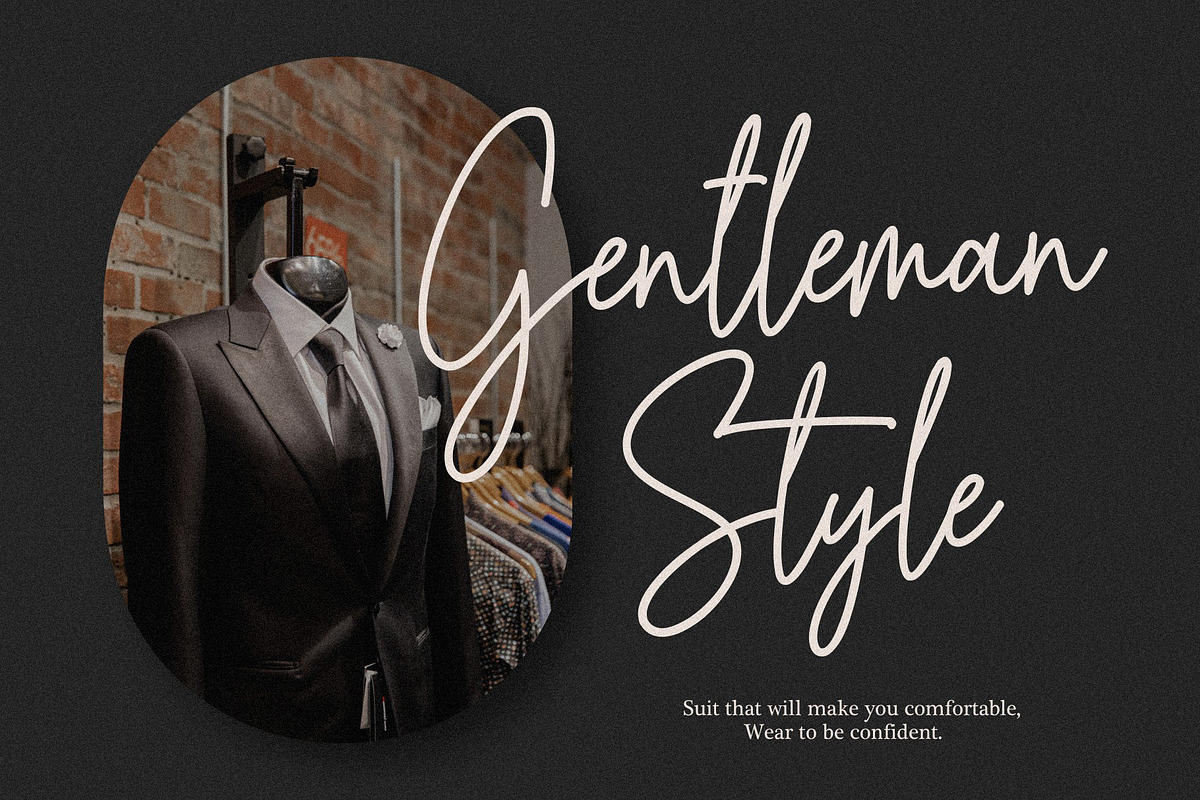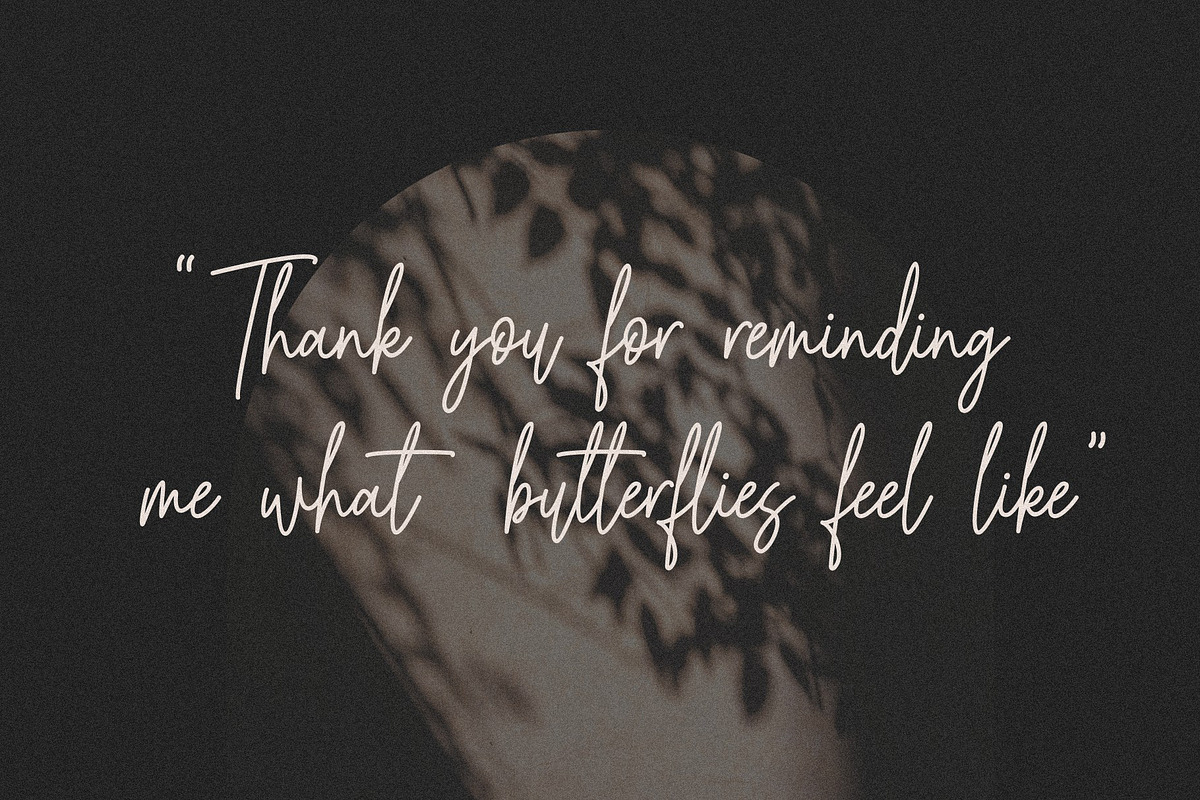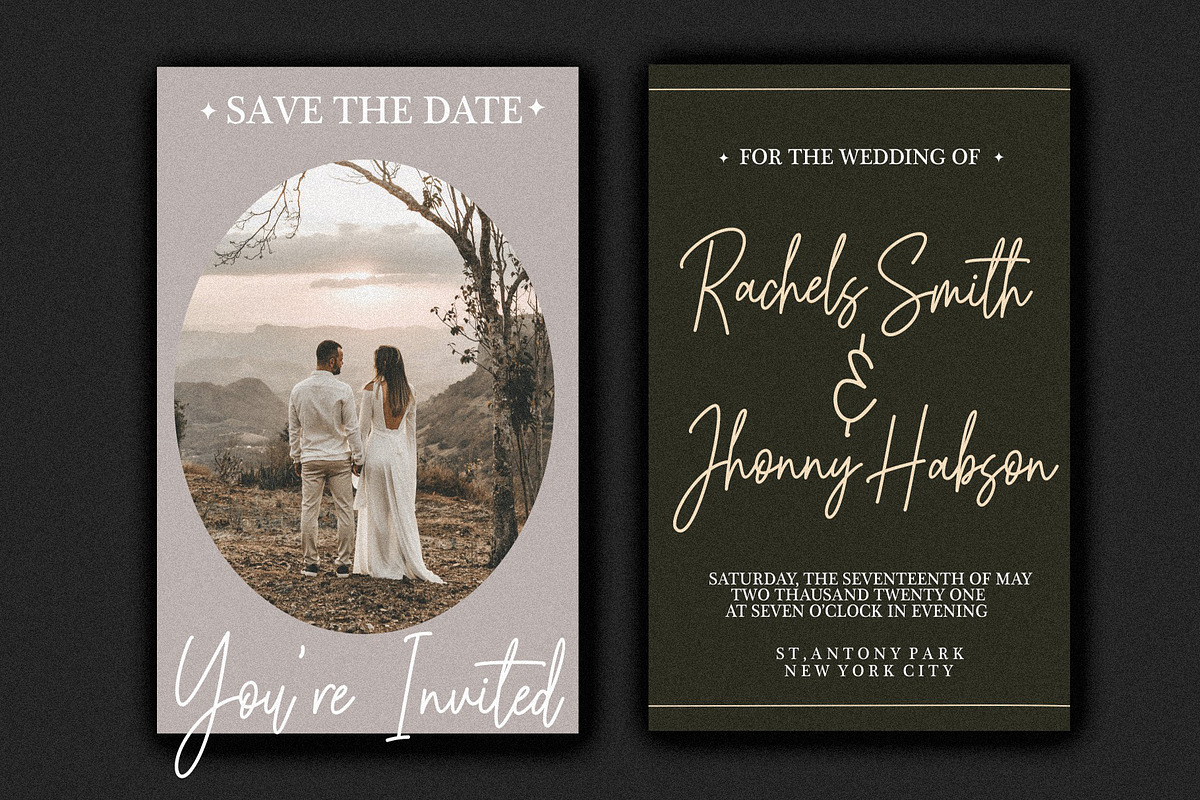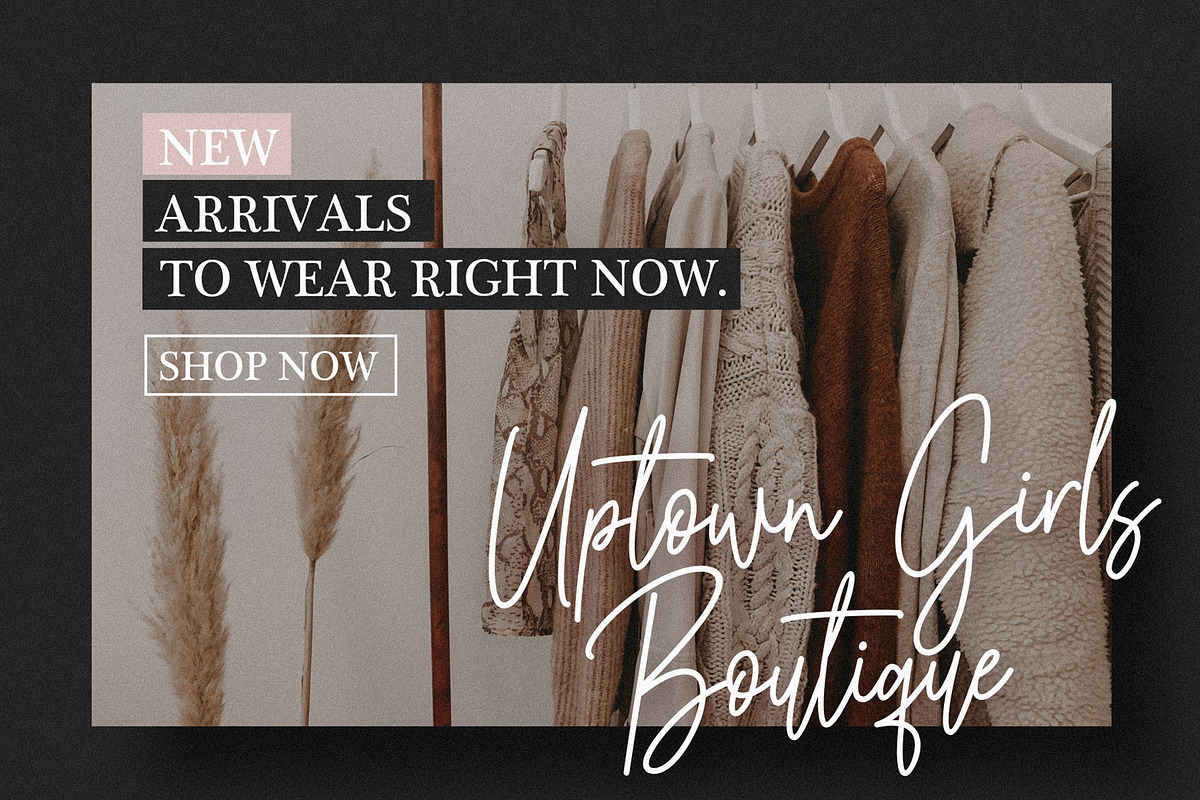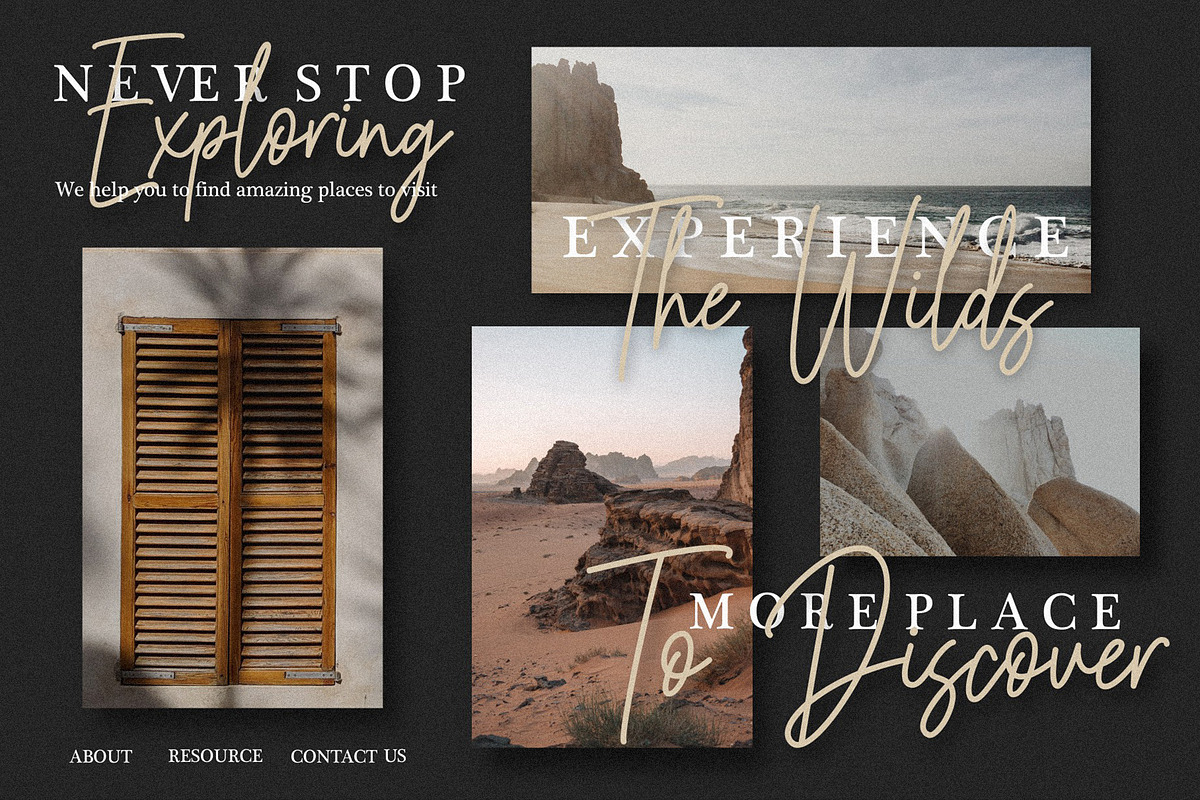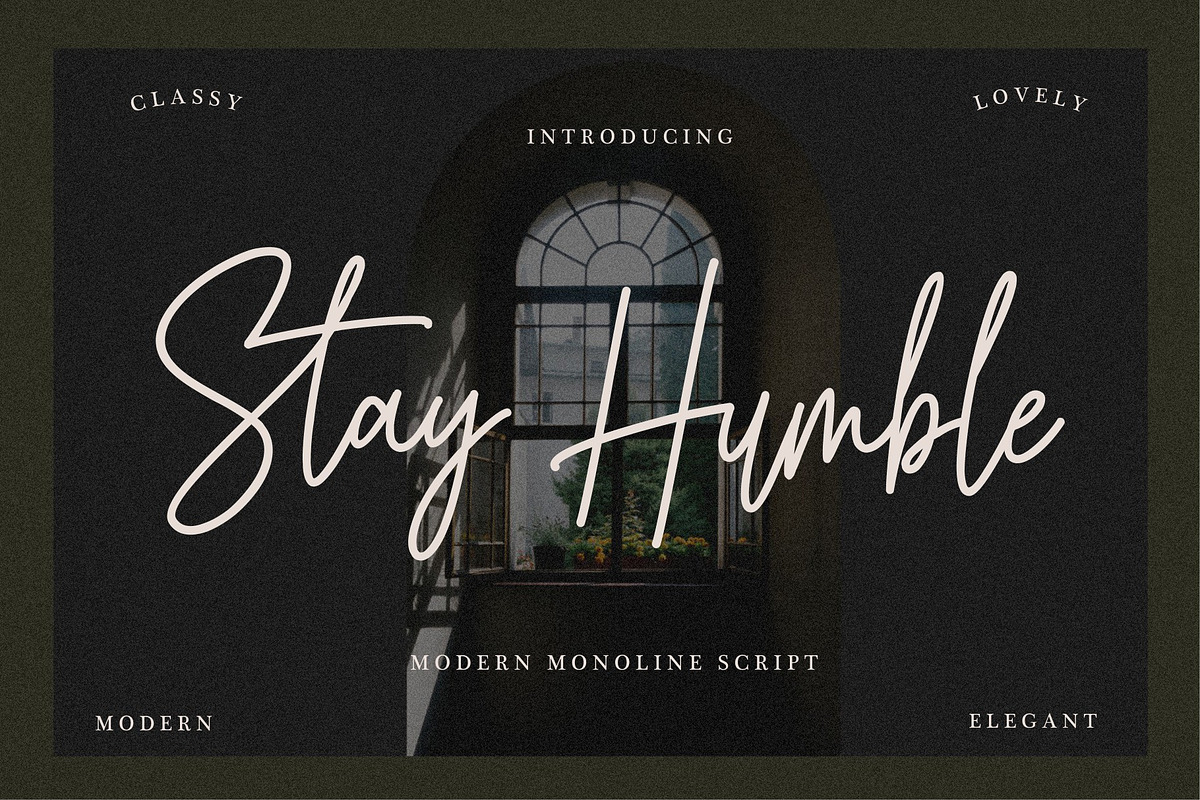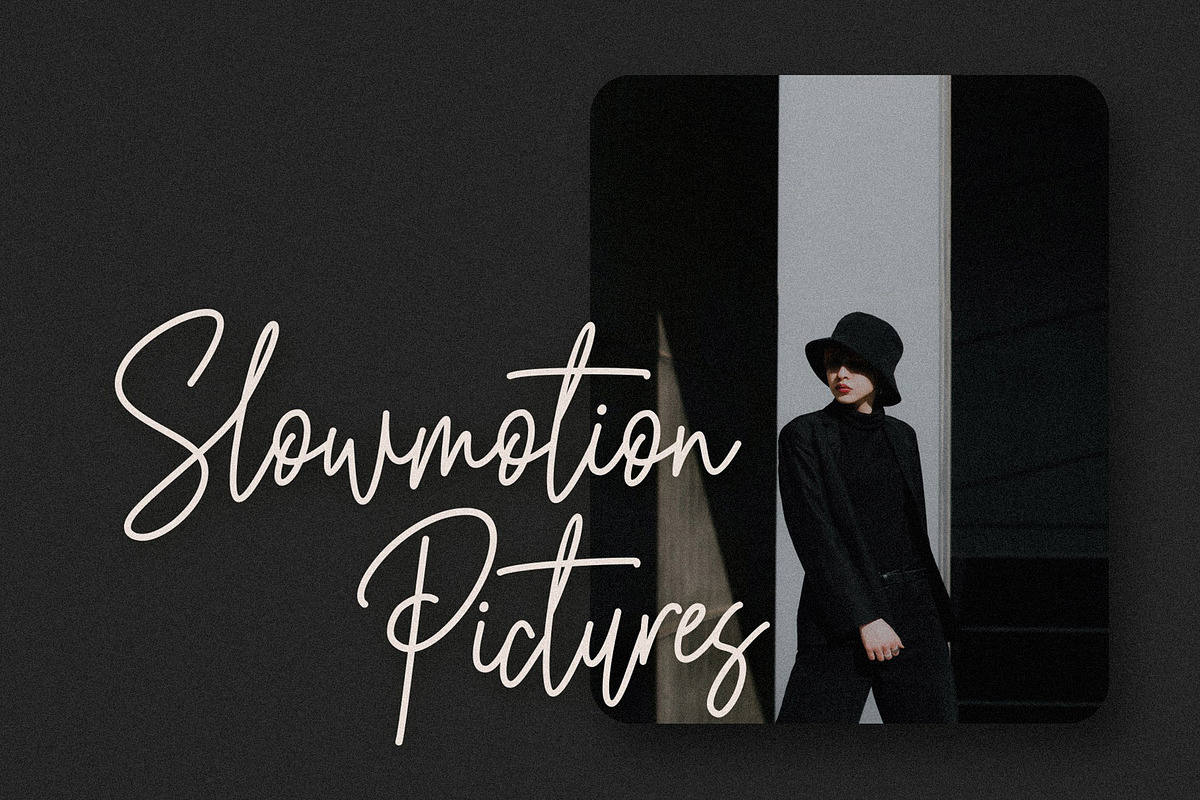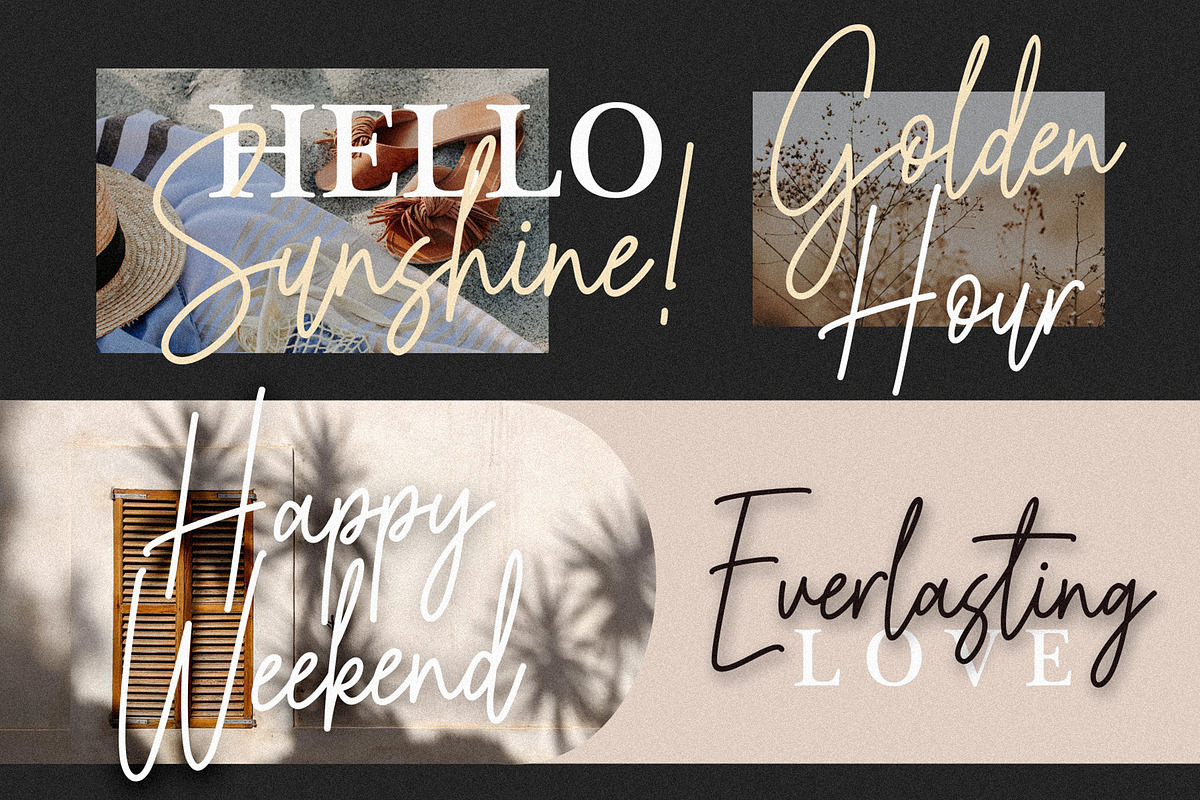
Stay Humble - Modern Monoline Script
Stay Humble Signature a new modern Monoline script.
This stunning Monoline script font is a elegant, classy, stylish and perfect for any awesome projects that needs a handwritten touch.
it features a varied baseline, smooth lines, gorgeous glyphs, This font is PUA-coded which means you can access all the amazing glyphs and swashes with ease!
Stay Humble Signature is great for wedding invitation card designs, logotypes, business card designs, advertisements, product designs, stationery, product packaging, quotes and so on.